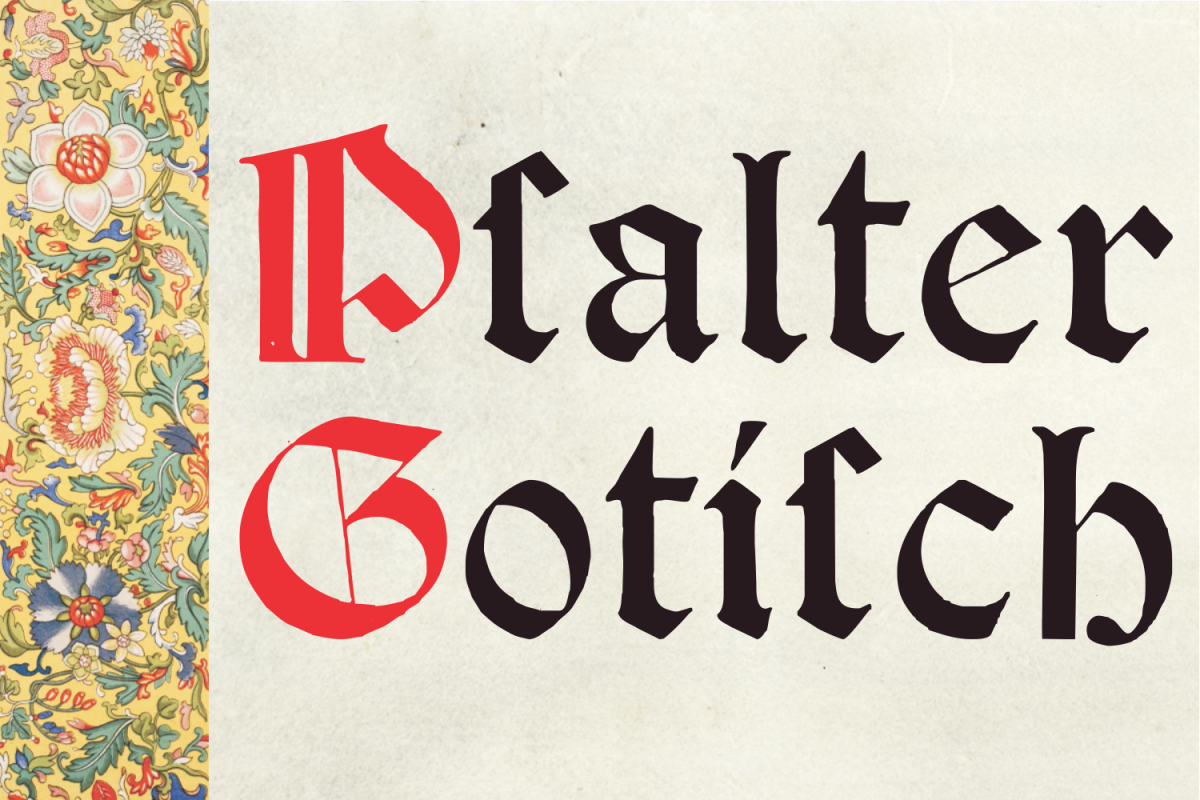
Psalter Gotisch
a classic blackletter type... combine with Like Guteberg caps to create authentich medieval documents : https://fontbundles.net/intellecta-design/39876-like-gutemberg-caps